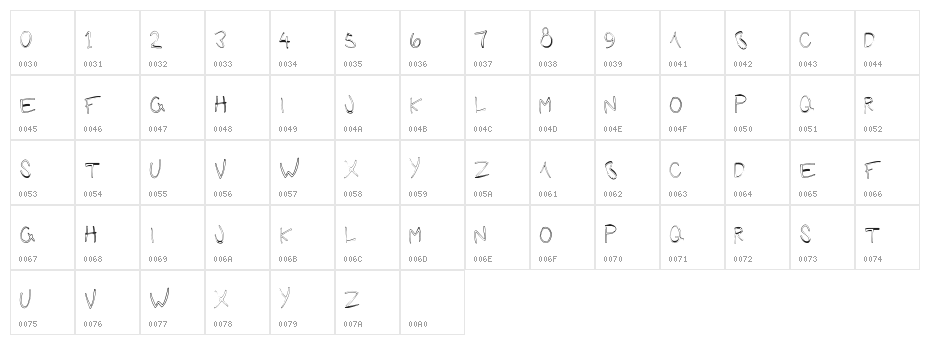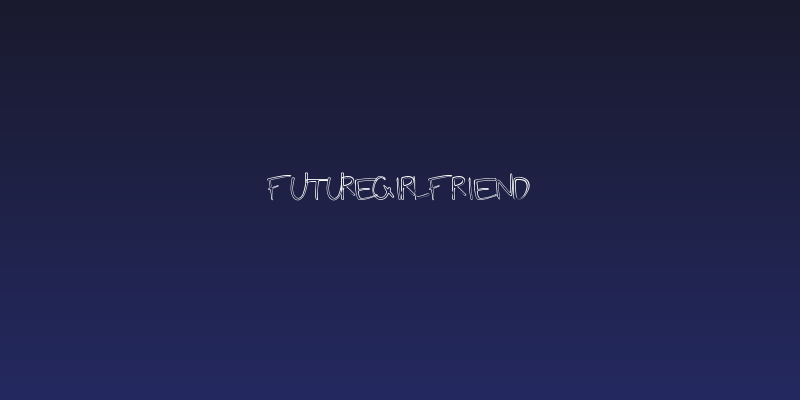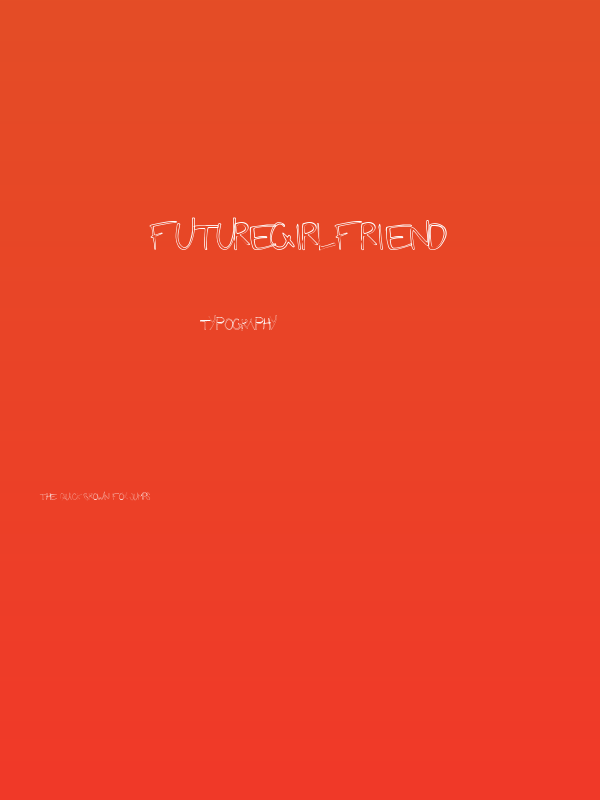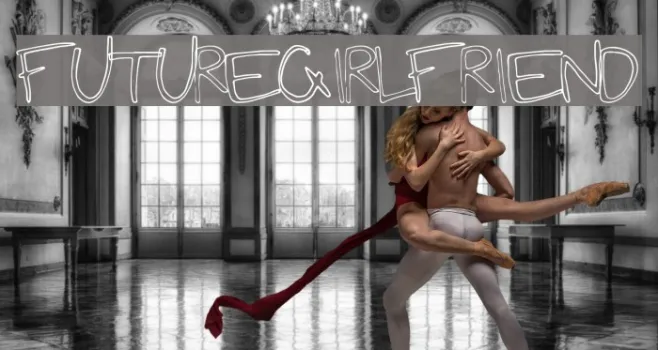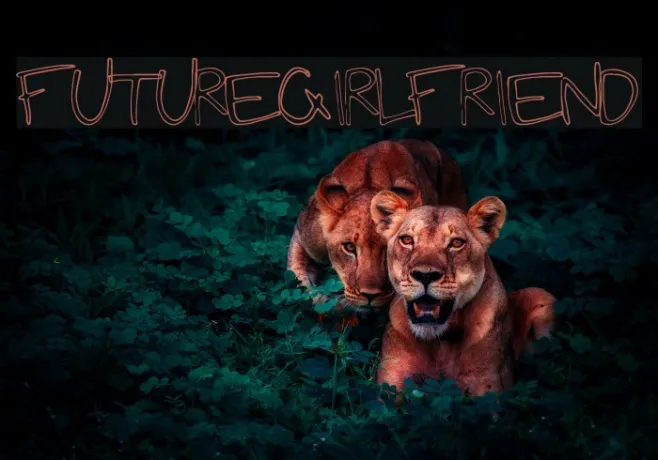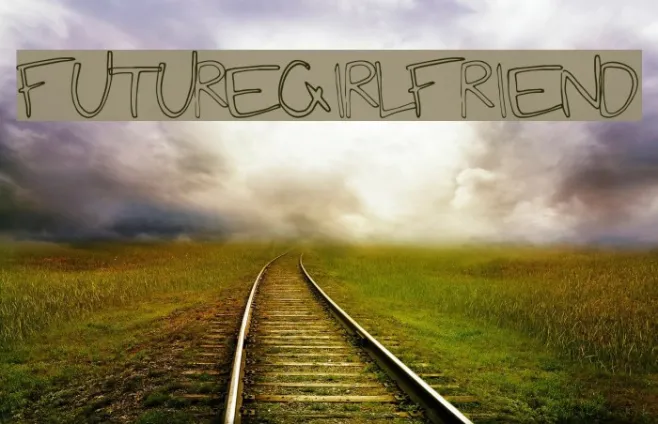
FutureGirlfriend Font
FutureGirlfriend Description
This font features a playful and dynamic handwritten style, characterized by its loose, flowing strokes and slightly irregular letterforms. The uppercase and lowercase letters maintain a consistent, casual aesthetic, with a touch of whimsy in their design. The numbers and special characters follow the same playful theme, making the font suitable for creative and informal applications. The overall appearance is lively and energetic, with a unique charm that stands out.
| Use Case | Logos, Posters, Creative projects |
| Proposed Projects | Ideal for greeting cards, children's books, playful branding, and creative posters. |